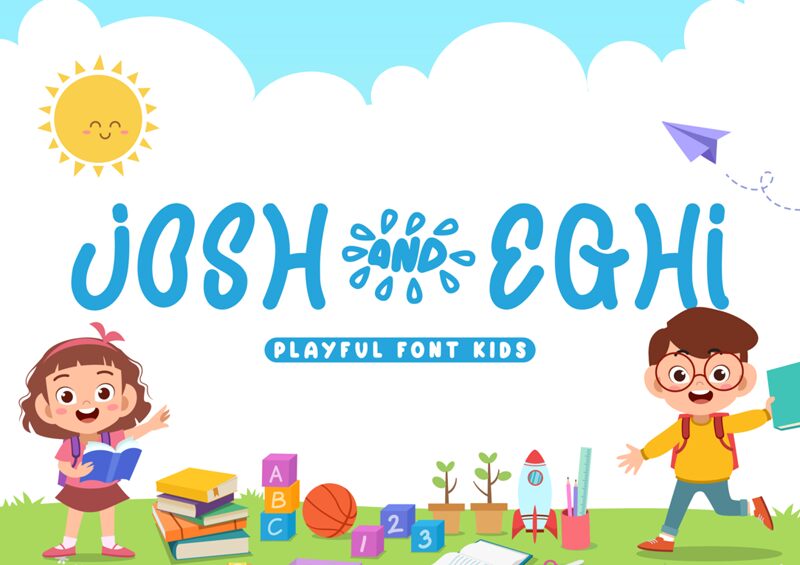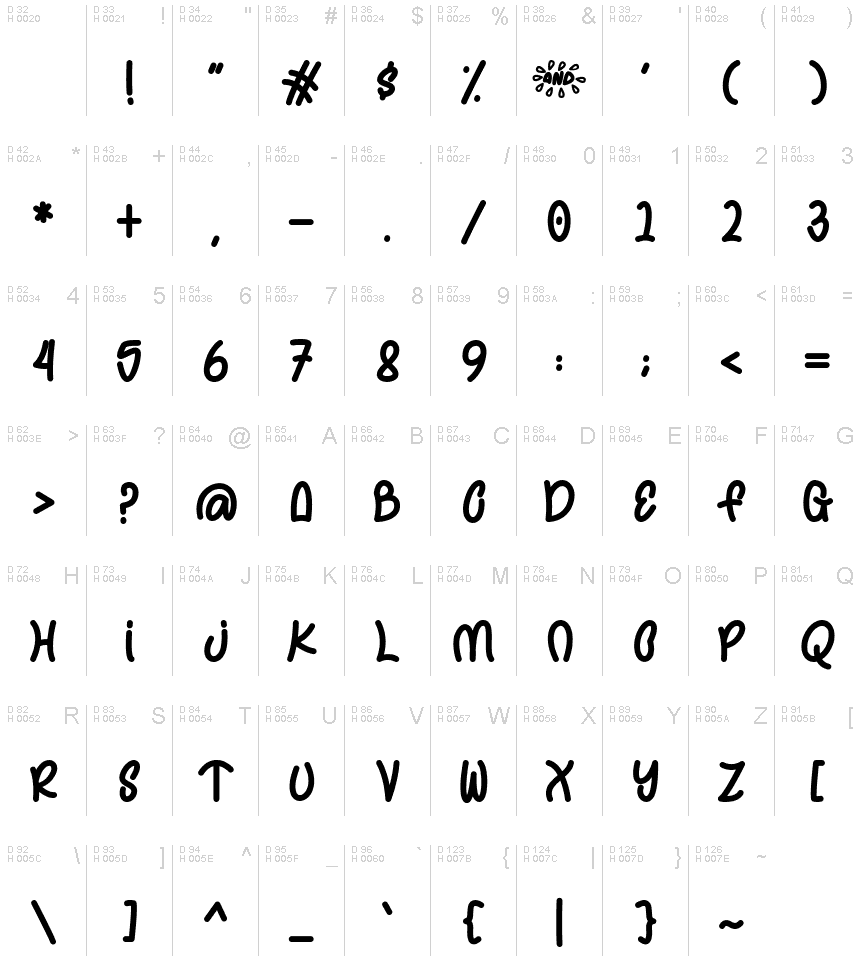
Meet JOSH & EGHI - the newest addition to the handwritten font family by nomlimofont. With its semi-light weight and condensed width, this font is perfect for adding a touch of elegance and sophistication to any project. Whether you're creating invitations, greeting cards, logos or social media graphics, JOSH & EGHI will breathe life into your designs. Its unique handwritten style brings a personal touch to any project, while the condensed width makes it easy to read even in smaller sizes. Make your projects stand out with JOSH & EGHI - because sometimes less really is more!